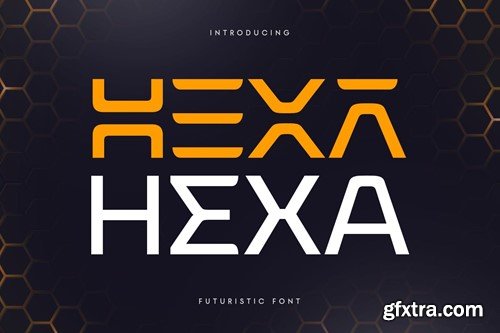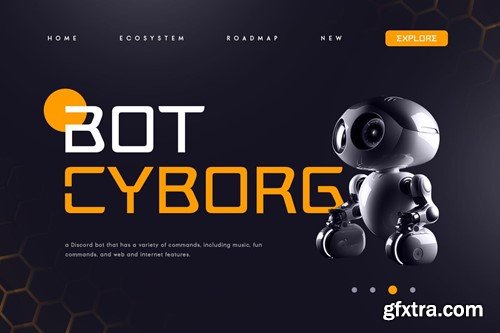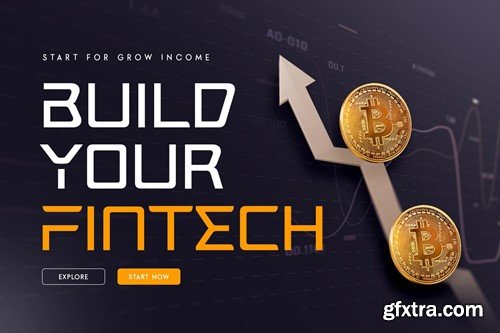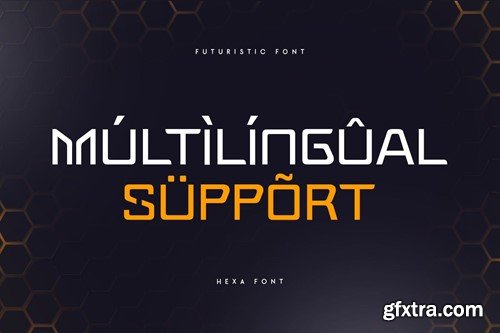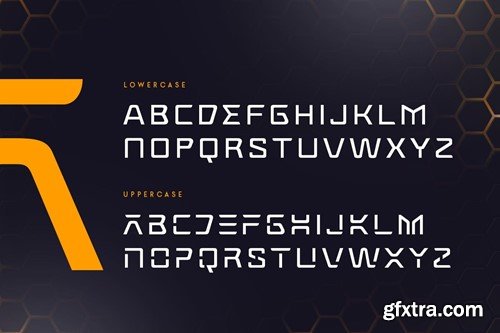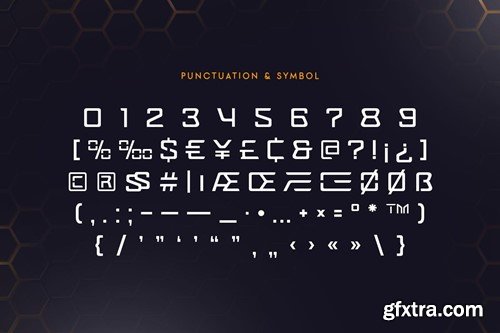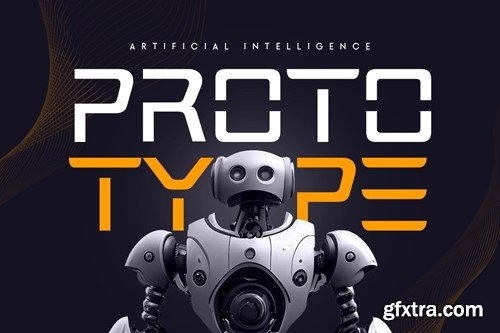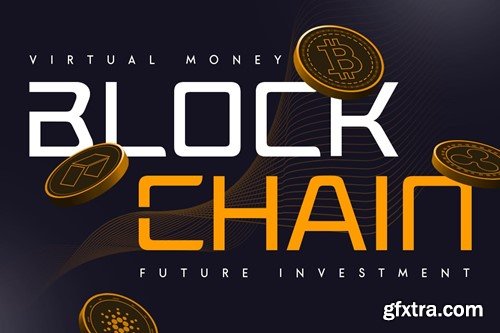
Hexa - Futuristic Font
Hexa is a Futuristic Sci-fi font that created special for Sci-fi, Modern, Technology and more stand out typography needs, with extra perfect styles that make your design more Futuristic. It's so perfect to add your style and headline overview for Cryptocurrency, technology, film, and Sci-fi theme. And specially for this font, we crafted for modern style and technology feels so enjoy to create any project that will show your main idea out. Hexa Futuristic Font ready with: Wish you enjoy our font. :)